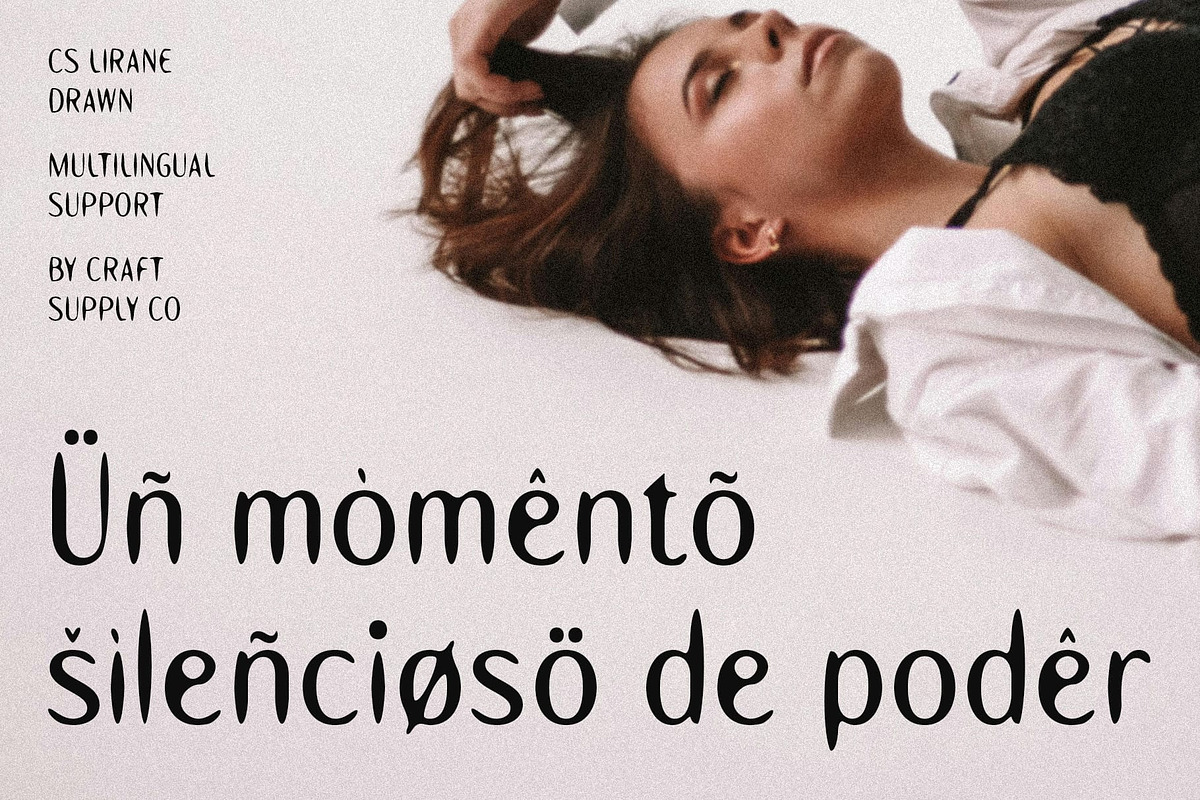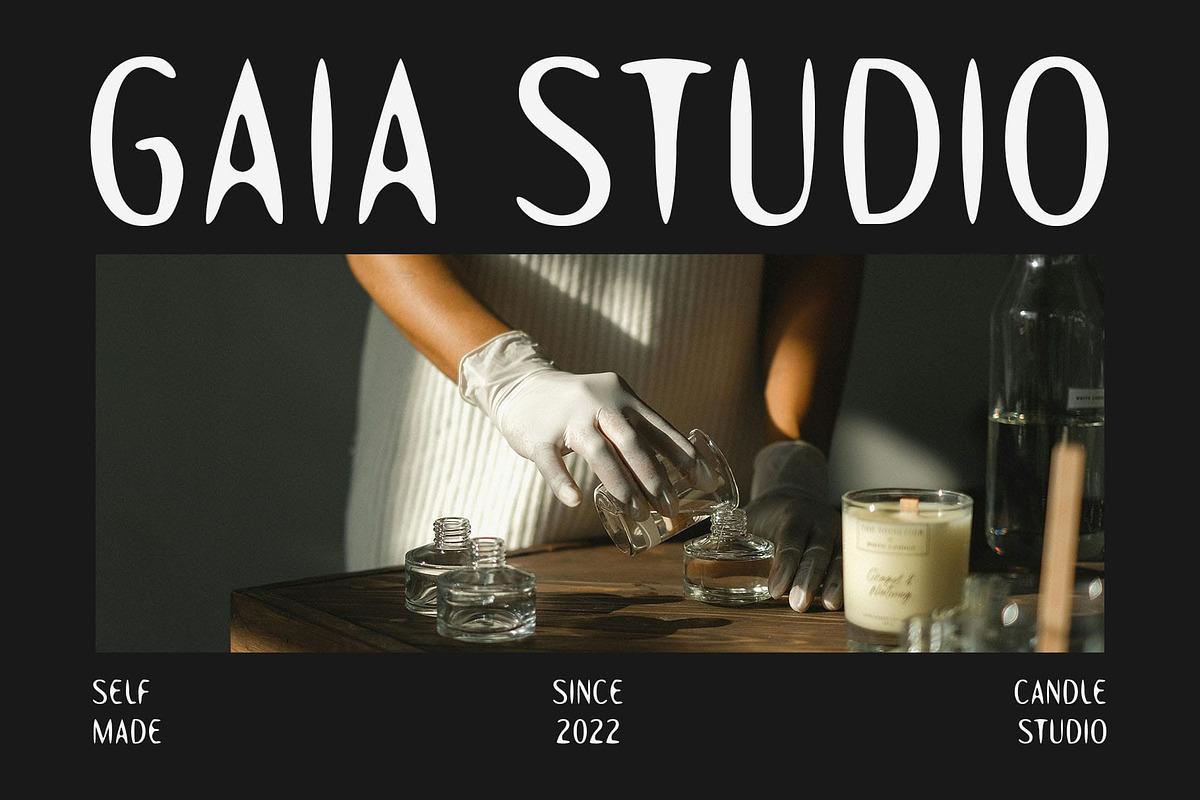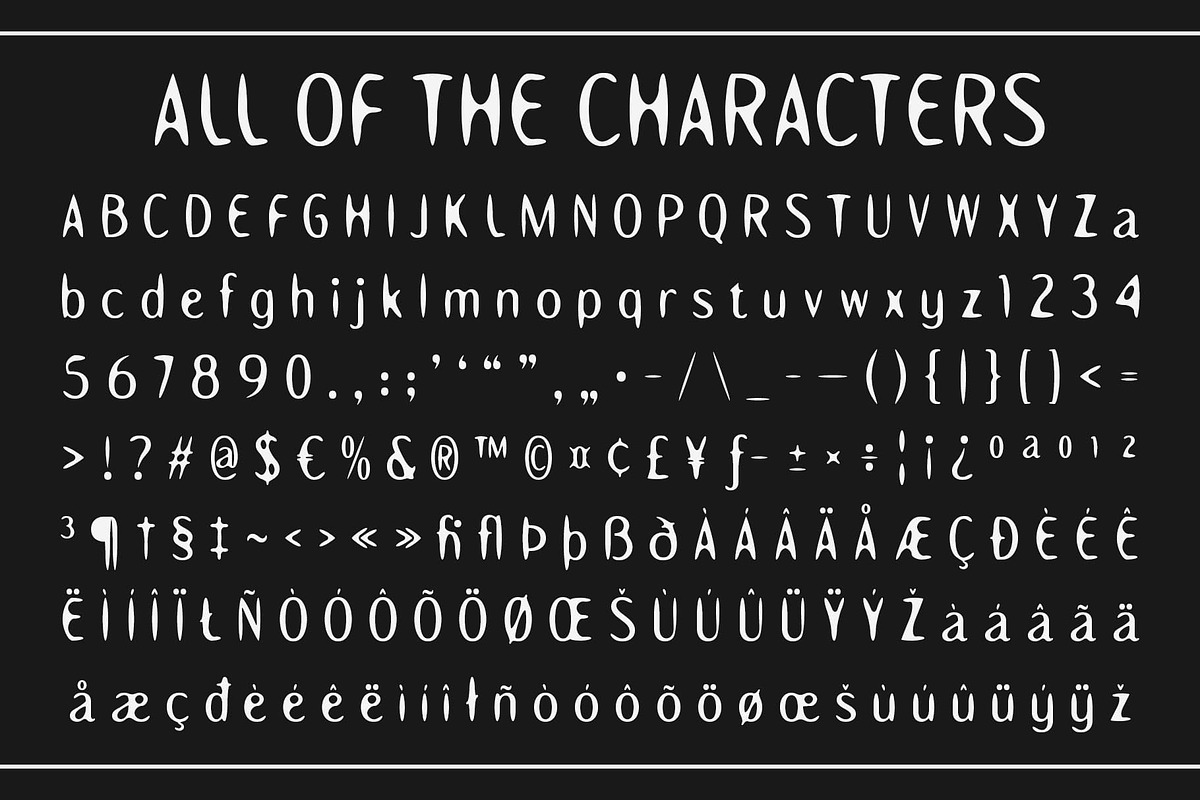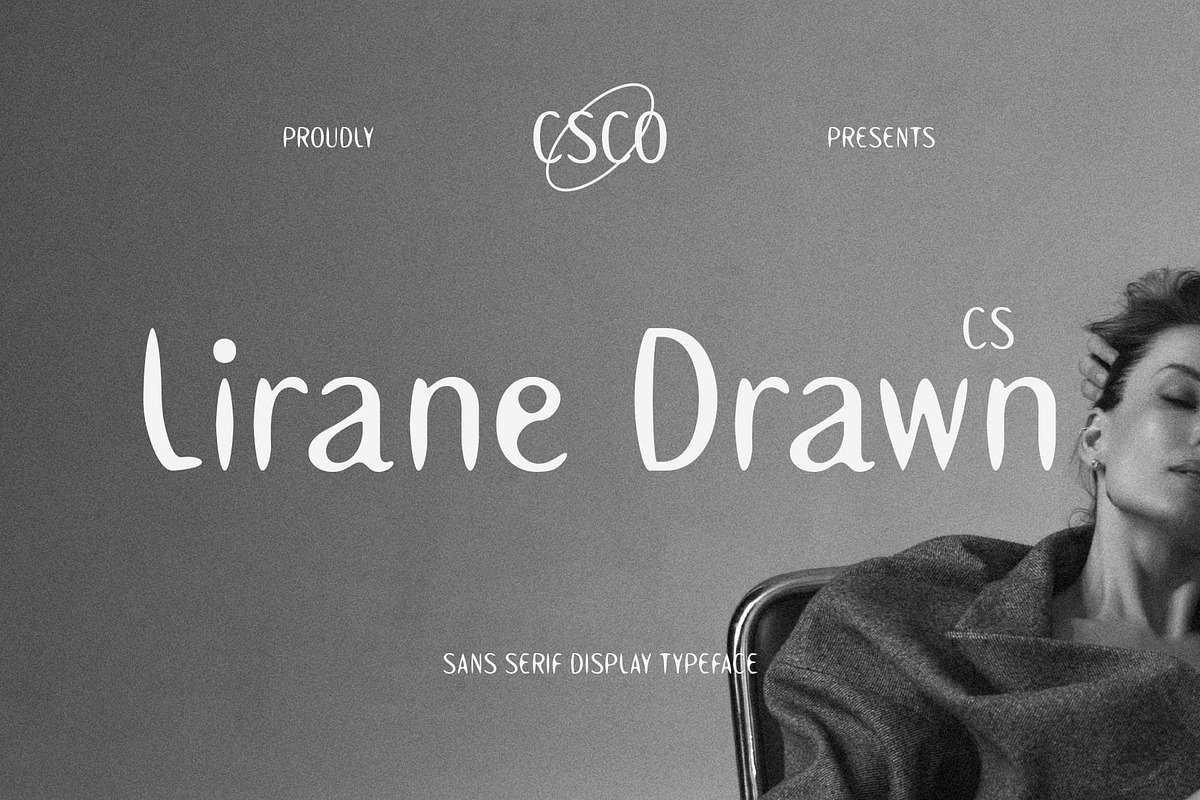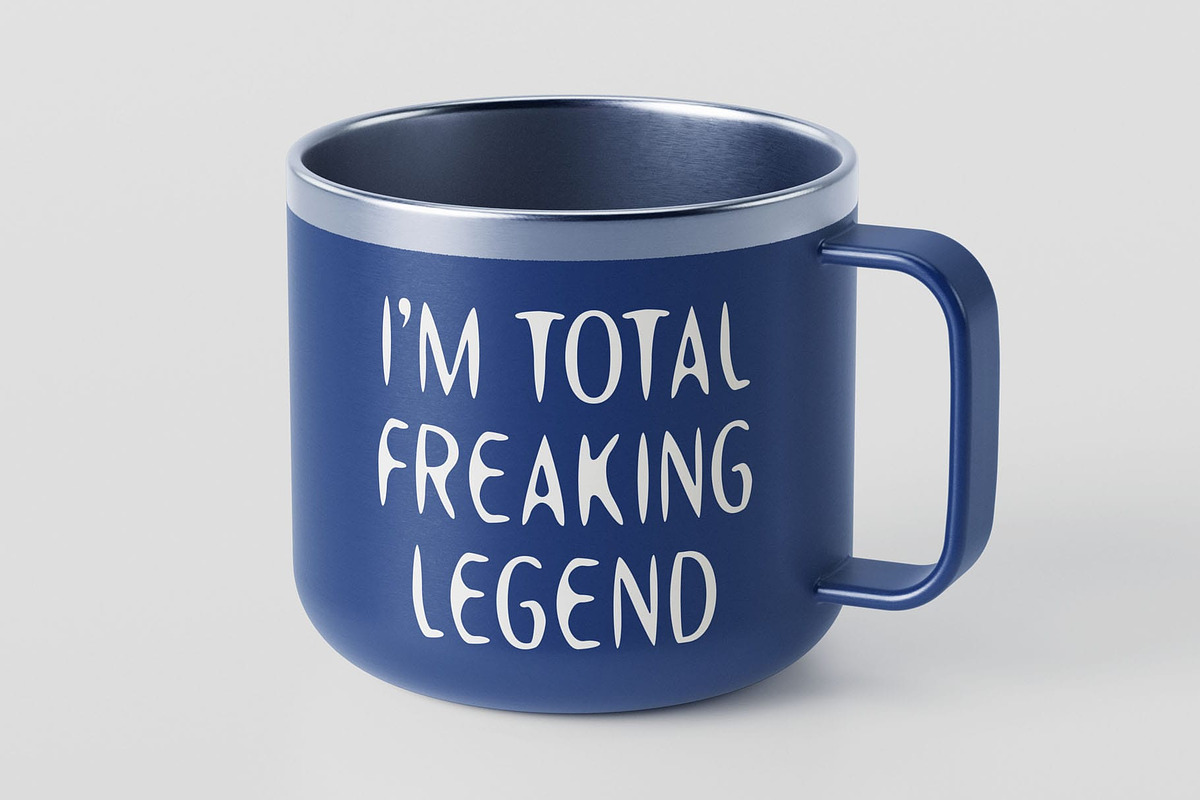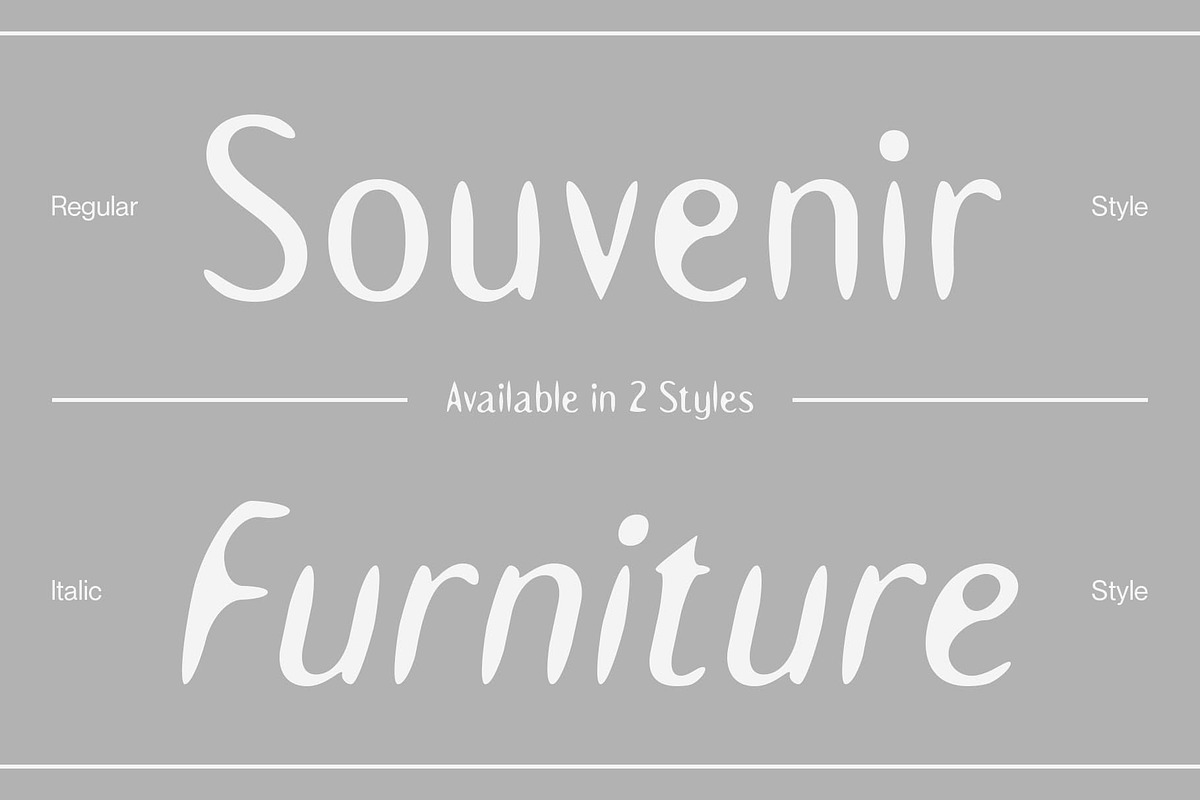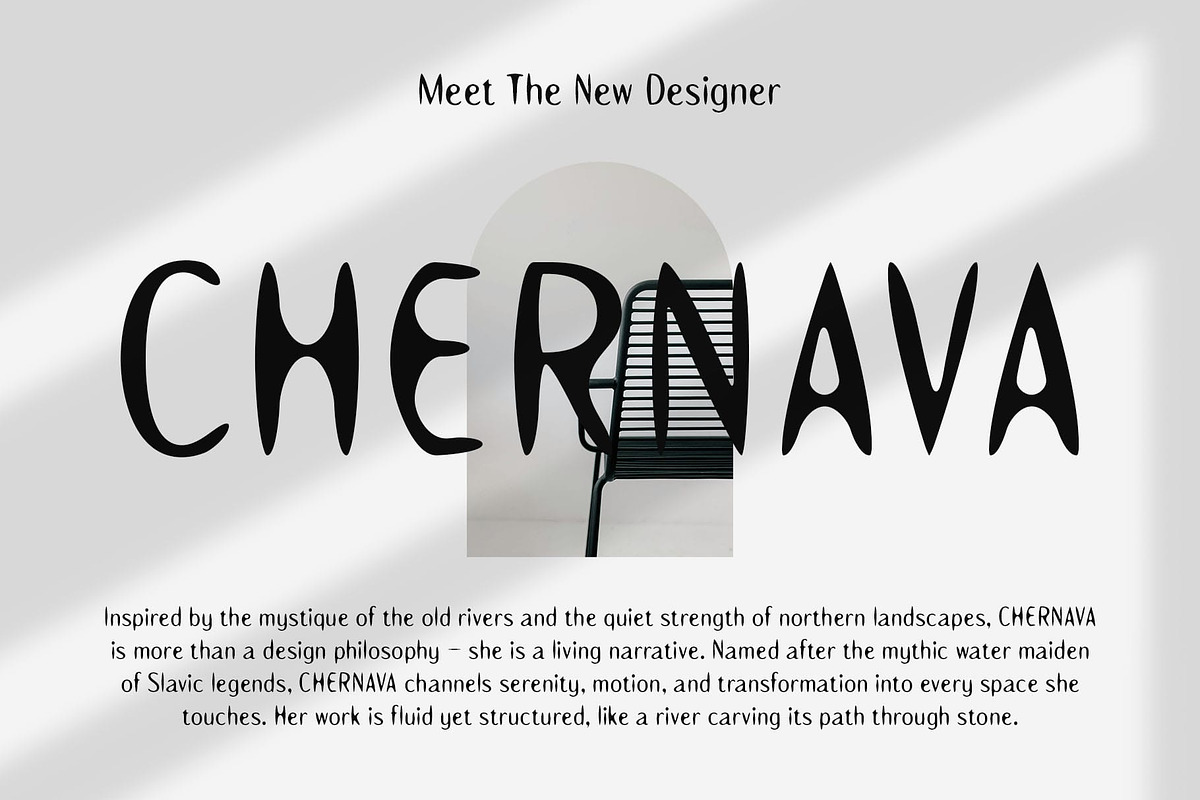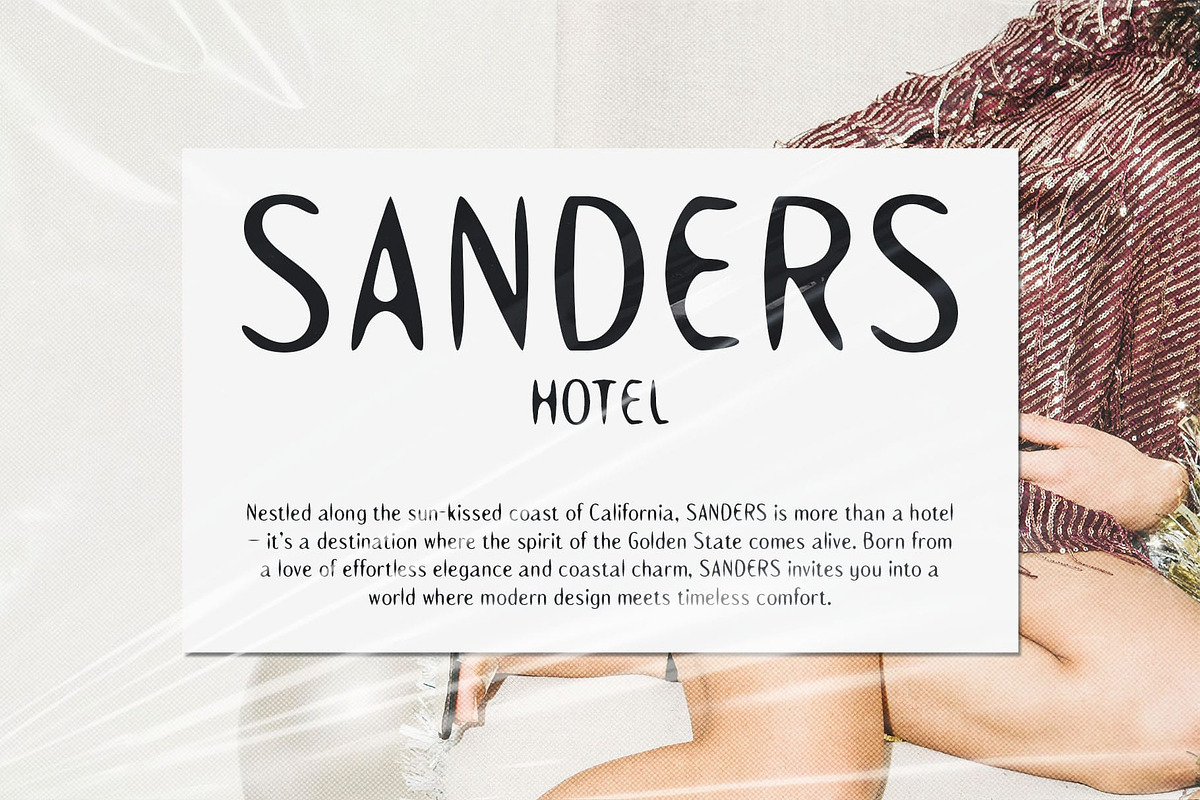
CS Lirane Drawn
CS Lirane Drawn – A Minimalist Geometric Font with a Human Touch
Clean Geometry Meets Organic Warmth This is a modern sans-serif font that brings together geometric precision and subtle hand-drawn imperfections. Its letterforms are structured with a clean, minimalist silhouette, reflecting clarity, balance, and modernist design principles.
Handcrafted Feel in a Digital Form While its core shape is rooted in precise geometry, the drawn texture introduces slight irregularities and organic edges that give the font a personal, human quality. These imperfections soften the rigidity of a typical geometric sans serif, making it feel more approachable, expressive, and artisanal.
A Fusion of Precision and Personality This clean yet expressive font strikes a harmonious balance between the rational and the intuitive, the constructed and the crafted. It maintains a strong, modern presence while adding visual depth and warmth—ideal for designs that seek to convey professionalism without sterility.
Versatile for Contemporary and Creative Projects From sleek headlines to experimental layouts, this modern yet humanistic font seamlessly adapts to a wide range of design contexts. Its gentle handcrafted quality adds visual warmth, making it ideal for use in creative industries, boutique branding, art-forward projects, and any visual communication that seeks to connect emotionally while maintaining professional clarity.